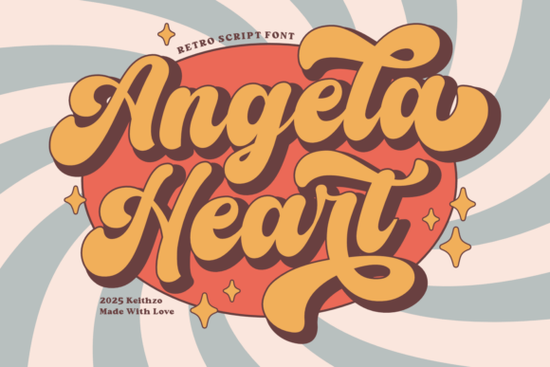
When you need a typeface that feels warm and nostalgic, Angela Heart Font delivers a groovy retro script that works well for handcrafted projects. The fluid strokes and expressive flourishes give letters a natural rhythm. Many print-on-demand sellers choose this style because it adds character without complex custom lettering. If your audience leans toward vintage aesthetics or playful branding, this typeface fits cleanly into casual design workflows.
How does this retro script perform in everyday design work?
The standout feature is the balance between bold presence and delicate movement. Characters connect smoothly, while built-in swashes let you adjust emphasis for logos, posters, or apparel. Because stroke weights vary naturally, text stays readable at medium sizes. Designers working on t-shirt layouts often scale the headline to fill the center, leaving negative space to keep the layout breathable. This approach works especially well for cotton blends and matte sticker paper where fine details might otherwise bleed.
What layouts benefit most from this style?
- Vintage-style apparel: Curved letters wrap naturally across chest prints and back panel graphics.
- Poster art and wall decals: Pairing the script with muted mustard, olive, or burnt orange palettes recreates authentic retro tones.
- Small business packaging: Bakery labels, sticker sheets, and thank-you cards gain a handcrafted feel without custom illustration costs.
- Social media templates: Short quotes stand out when the font is sized correctly and placed over light grain textures.
What should you check before adding it to your project?
Avoid over-styling retro typography. Simple two-color palettes or subtle paper textures support the script better than heavy shadows or neon outlines. Keep your hierarchy clear by limiting decorative elements to one focal point per layout. When working with crafters, remember that intricate curves require higher DPI settings to avoid jagged edges during cutting or screen printing.